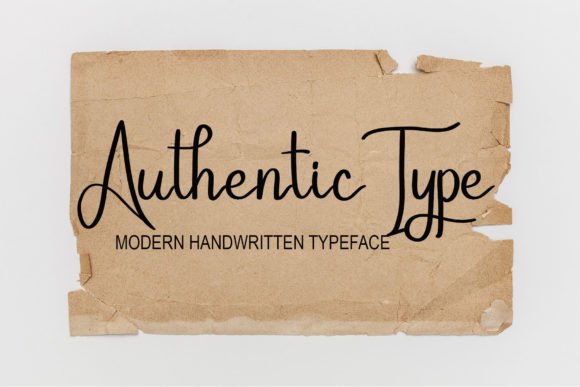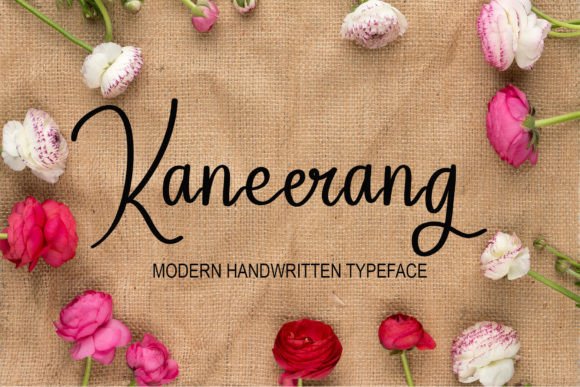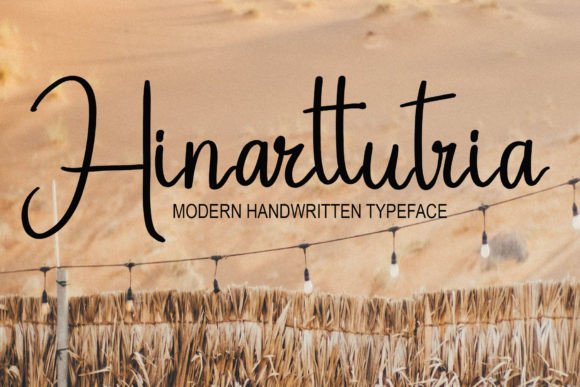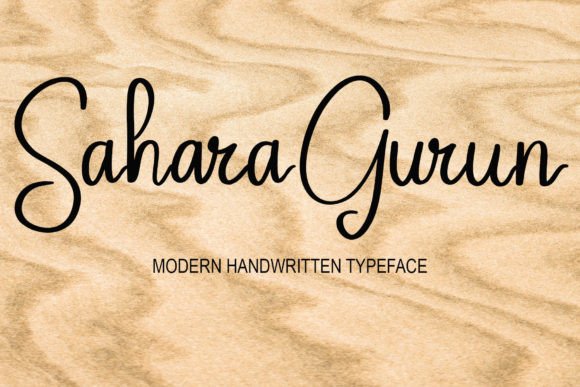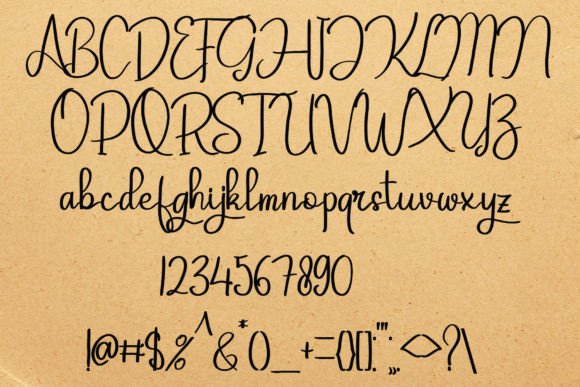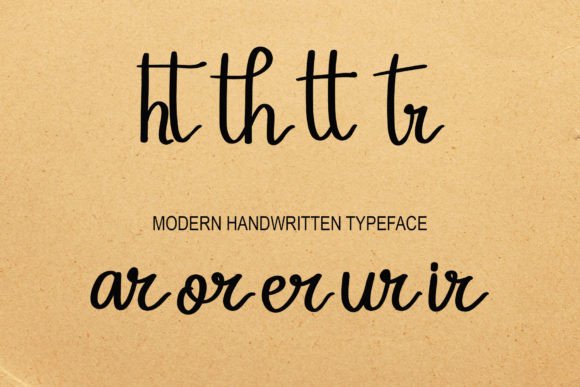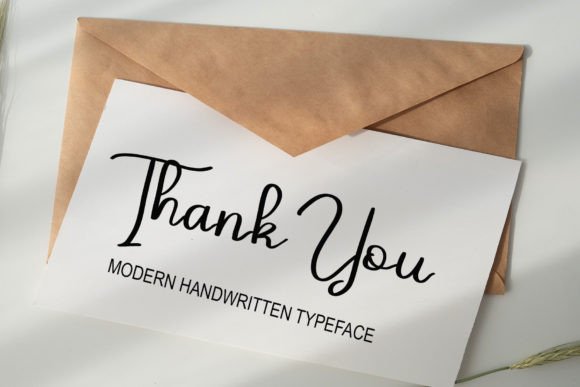
Authentic Type Font
Add Stylish Authenticity with Authentic Type Font
The Authentic Type font is a stylish handwritten script created by hand using a tablet, giving it a unique, natural flair. Perfect for adding a personal touch to your creative projects, this font works beautifully for websites, wedding invitations, business cards, signatures, and all types of advertisements.
Perfect for Websites, Invitations, and Advertising
The Authentic Type font fits perfectly in diverse applications such as website design, wedding stationery, business branding, product advertisements, and promotional materials. Despite its simple appearance, this font maintains a cool and stylish vibe that elevates your work.
A Handwritten Script with Natural Flow and Style
Each character in the Authentic Typefont is crafted to reflect authentic handwriting with smooth, natural strokes. This font balances simplicity with style, making it easy to read while adding a modern and personalized touch to your designs.
Despite its handwritten, casual style, the Authentic Typefont maintains excellent readability across various sizes. Whether used for headlines, logos, or smaller text elements, it balances clarity with personality, making it suitable for many creative projects.
Make Your Designs Stand Out with Natural Style
Typography is essential in conveying your design’s personality, and Authentic Type adds a genuine, stylish spirit. If you want to elevate your projects with a cool and simple handwritten font, download the Authentic Typefont today and create memorable, authentic visuals.